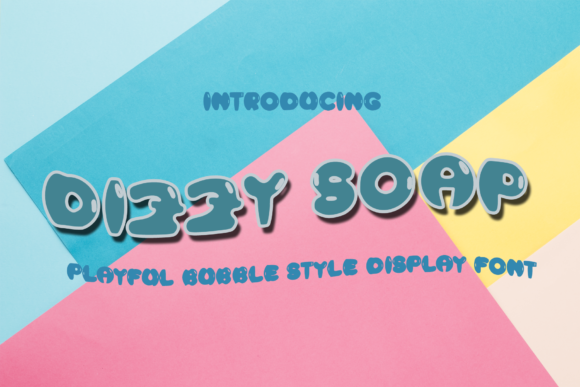
Dizzy Soap Font: Elevate Your Creations with a Playful and Bubbly Display Font
Are you tired of using the same old fonts in your designs? Look no further than Dizzy Soap Font, an all-caps, playful, and bubbly display font that’s sure to elevate your creations. Whether you’re a designer, crafter, or DIY enthusiast, Dizzy Soap is an incredibly versatile font that can add a touch of whimsy and fun to any project.
What Makes Dizzy Soap Font So Special?
Dizzy Soap Font is an all-caps display font that’s perfect for creating eye-catching headings, titles, and captions. Its playful and bubbly design makes it ideal for projects that require a touch of personality and fun. Whether you’re creating a logo, poster, or social media graphic, Dizzy Soap is sure to make your design stand out.
One of the things that sets Dizzy Soap apart from other fonts is its PUA (Private Use Area) encoding. This means that you can access all of the glyphs and swashes with ease, giving you even more creative possibilities. With Dizzy Soap, you can add flourishes and embellishments to your text, making it truly unique and eye-catching.
Why Designers and Crafters Love Dizzy Soap Font
Designers and crafters love Dizzy Soap Font for its versatility and ease of use. Whether you’re creating a professional design or a DIY project, Dizzy Soap is easy to install and use. The font comes with a range of glyphs and swashes, making it easy to customize your text and add a personal touch.
Dizzy Soap is also a great font for crafters who love to create handmade cards, scrapbook pages, and other paper crafts. The font’s playful design makes it perfect for adding a touch of whimsy and fun to your projects. With Dizzy Soap, you can create beautiful and unique designs that are sure to impress.
How to Use Dizzy Soap Font in Your Designs
Using Dizzy Soap Font in your designs is easy. Here are a few tips to get you started:
• Use Dizzy Soap as a heading or title font to add a touch of personality to your design.
• Experiment with different glyphs and swashes to add flourishes and embellishments to your text.
• Pair Dizzy Soap with other fonts to create a unique and eye-catching design.
• Use Dizzy Soap to add a touch of whimsy and fun to your DIY projects, such as handmade cards and scrapbook pages.
Dizzy Soap Font is a playful and bubbly display font that’s perfect for designers and crafters who want to add a touch of personality to their designs. With its PUA encoding and range of glyphs and swashes, Dizzy Soap is an incredibly versatile font that can elevate any creation. Whether you’re creating a professional design or a DIY project, Dizzy Soap is sure to make your design stand out.
Key Features of Dizzy Soap Font
• All-caps display font
• Playful and bubbly design
• PUA encoded for easy access to glyphs and swashes
• Perfect for headings, titles, and captions
• Great for DIY projects, such as handmade cards and scrapbook pages
With its unique design and versatility, Dizzy Soap Font is a must-have for any designer or crafter looking to add a touch of personality to their creations.